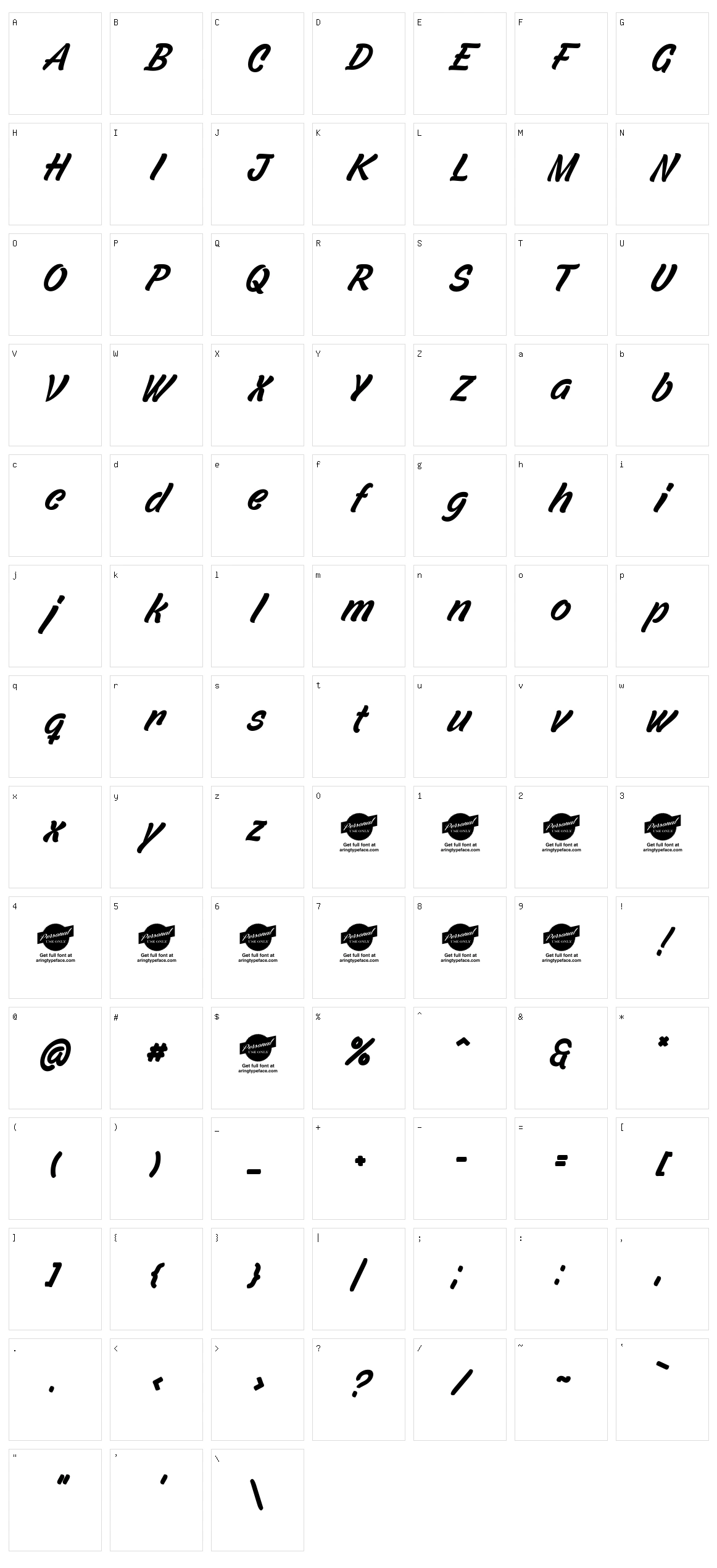
The free font Filbert Color is carefully designed by Mans Greback, showcasing a thoughtful balance of creativity and usability and falls under the Script font style. When you download the ZIP file, it contains only 317 KB of font files, making it lightweight and quick to download. Please review the license details below to understand permitted usage and distribution rights. If license information is not available, we recommend using this font for personal projects only or contacting the author directly for commercial usage permissions.